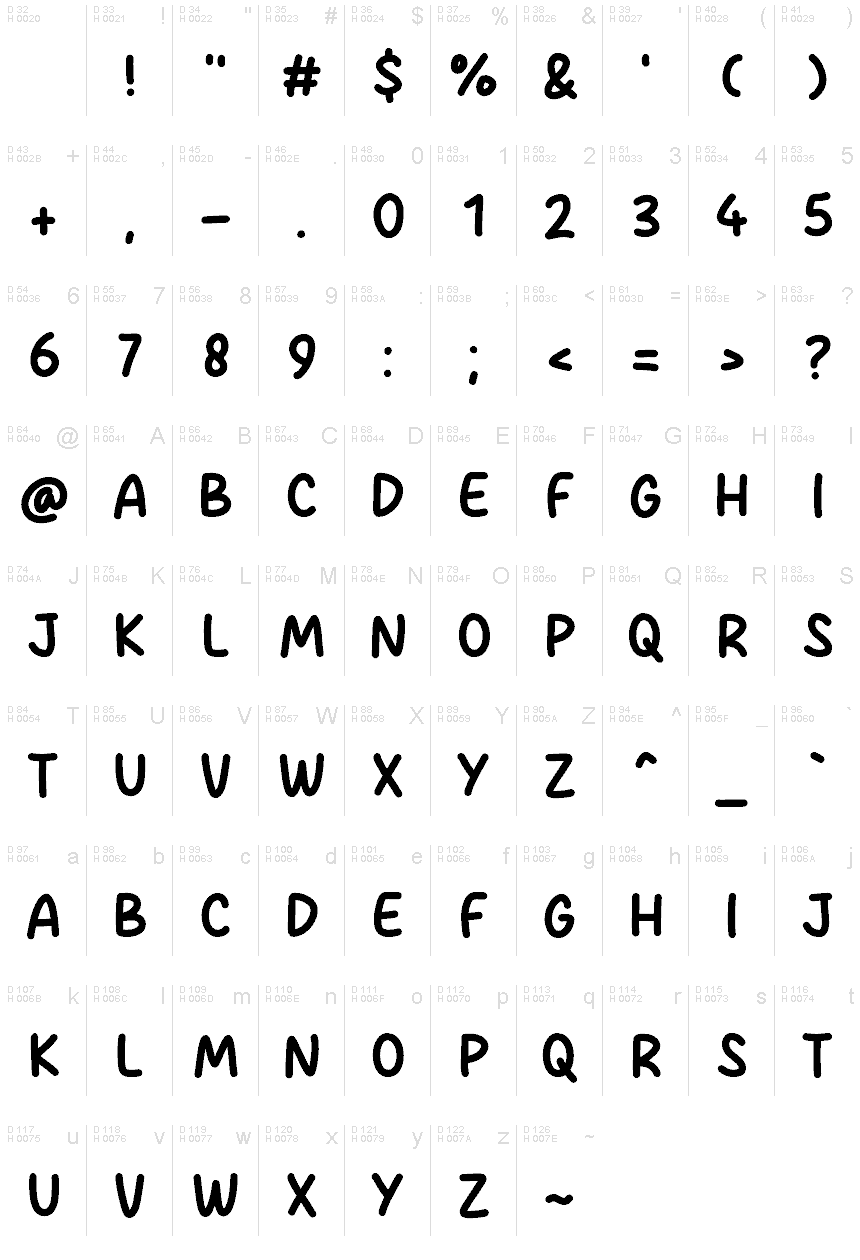
Best Work
Best Work font is a free handwritten font by MJType featuring chunky and organic glyphs that are attractive from the first sight. Its expressive nature is all about the casual and fun vibes which makes it look appealing at various sizes. The hand-drawn lines are irregular, wavy and unique, as every detail was drawn individually.
Use Best Work in logos, labeling products, branding projects, and packaging (particularly for natural or organic products). The wide letters are easy to read making this typeface suitable for both headlining your posters or designing T-shirt prints with memorable phrases.